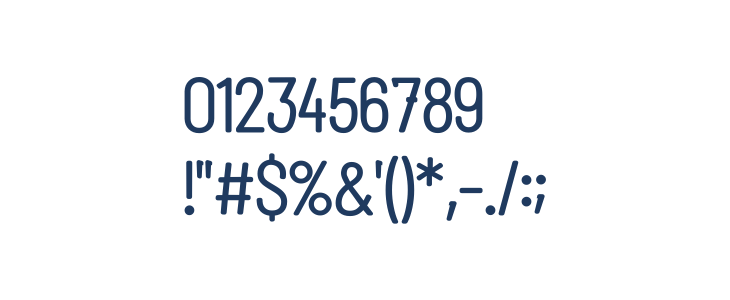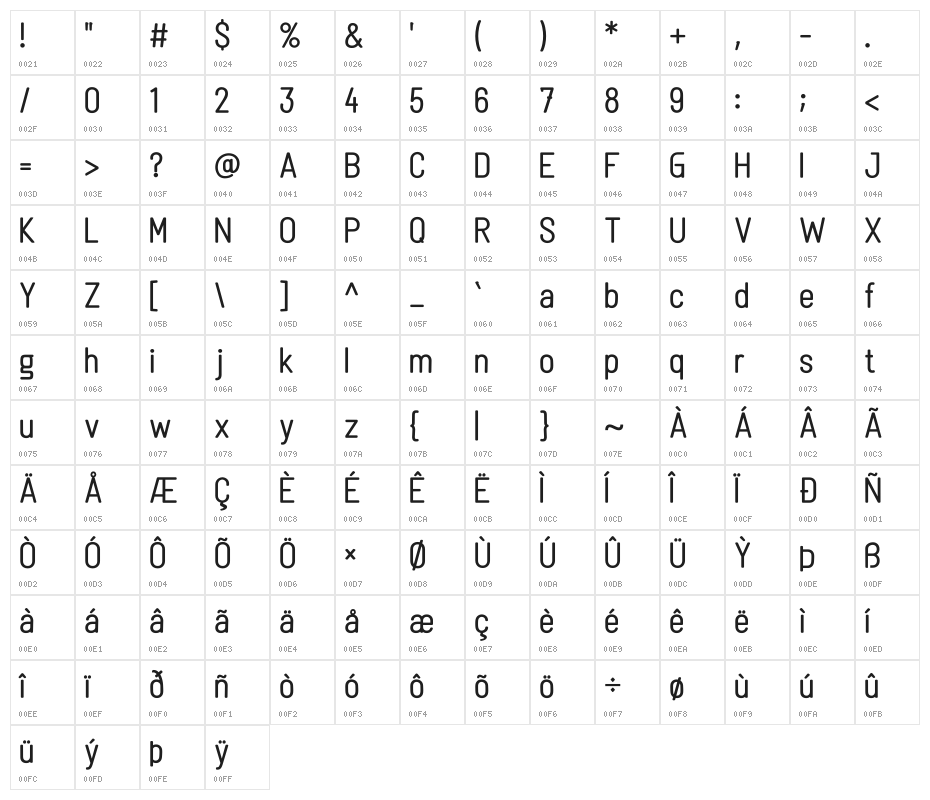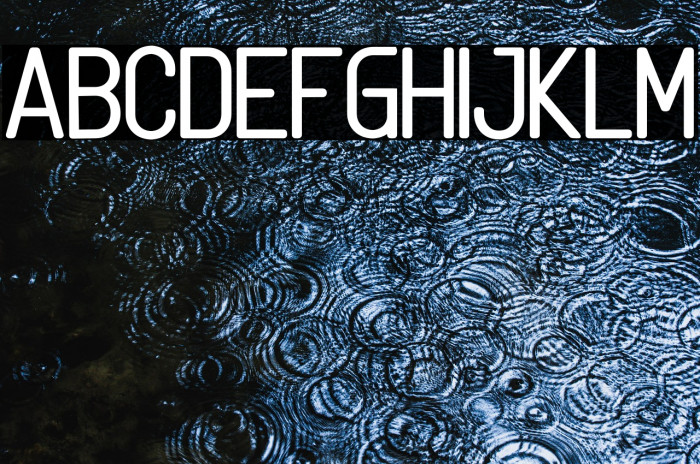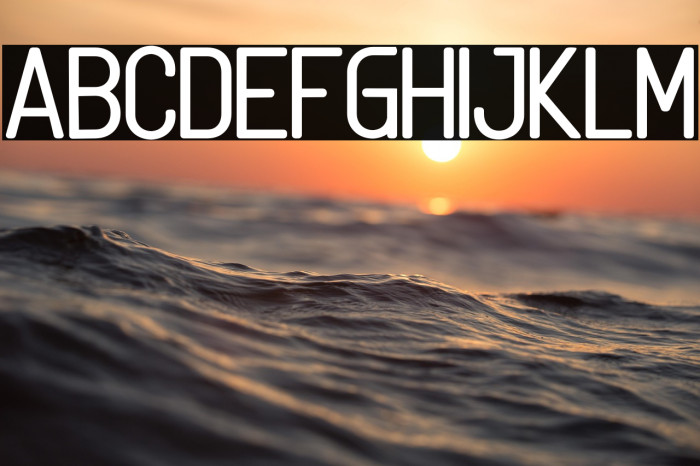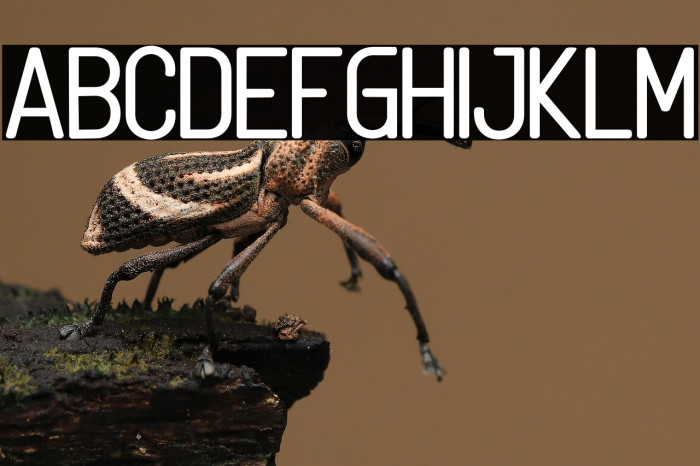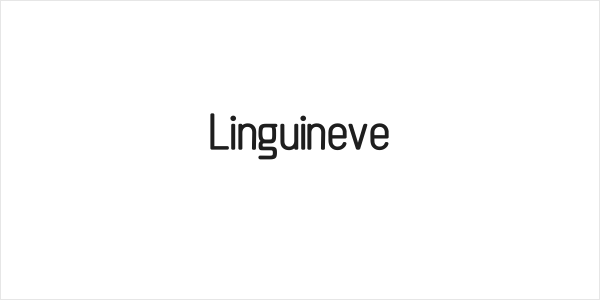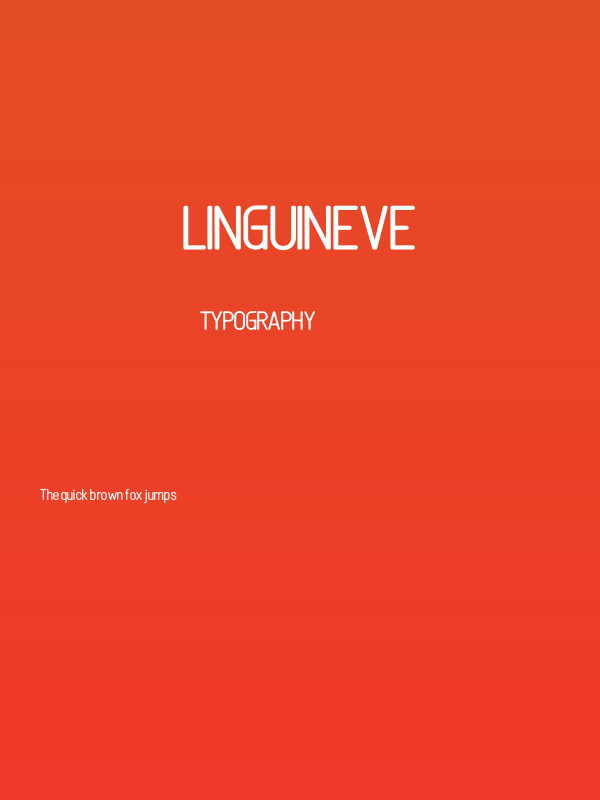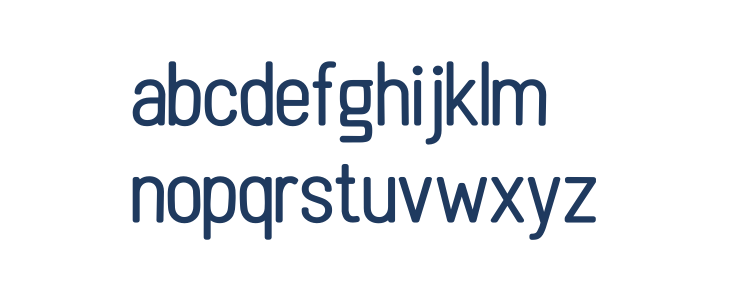
Linguineve Font
Linguineve Description
This font features a clean, modern sans-serif design with rounded edges that give it a friendly and approachable appearance. The characters are evenly spaced, providing a balanced and harmonious look. The uppercase and lowercase letters maintain a consistent style, with the lowercase having a slightly more playful feel due to the rounded terminals. The numerals are clear and legible, making them suitable for various applications. Special characters are well-integrated, maintaining the overall aesthetic of the font. Its simplicity and clarity make it versatile for both digital and print media.
Proposed ProjectsIdeal for branding, web design, packaging, and editorial projects where a modern and friendly tone is desired.